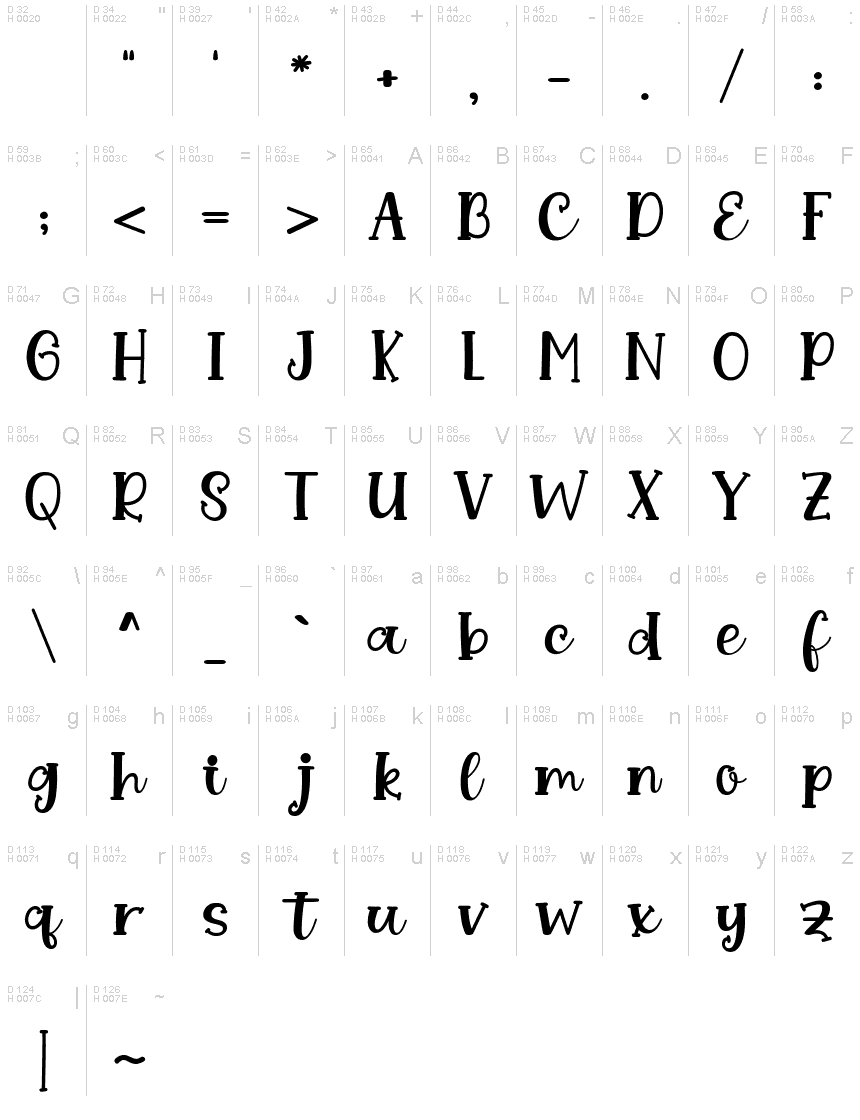
Nobula Regular
Nobula is the perfect semi-bold handwritten font for any project that requires a touch of creativity and personality. Designed by Nico Muslib, this unique typeface features a playful yet refined style that can elevate any brand or design. Whether you're working on a logo, a website, or a print project, Nobula's charming curves and bold lines will make your content stand out. Ideal for fashion blogs, beauty brands, food packaging, or anything that needs a little extra flair. With Nobula, you can add character to your designs and make them truly unforgettable.